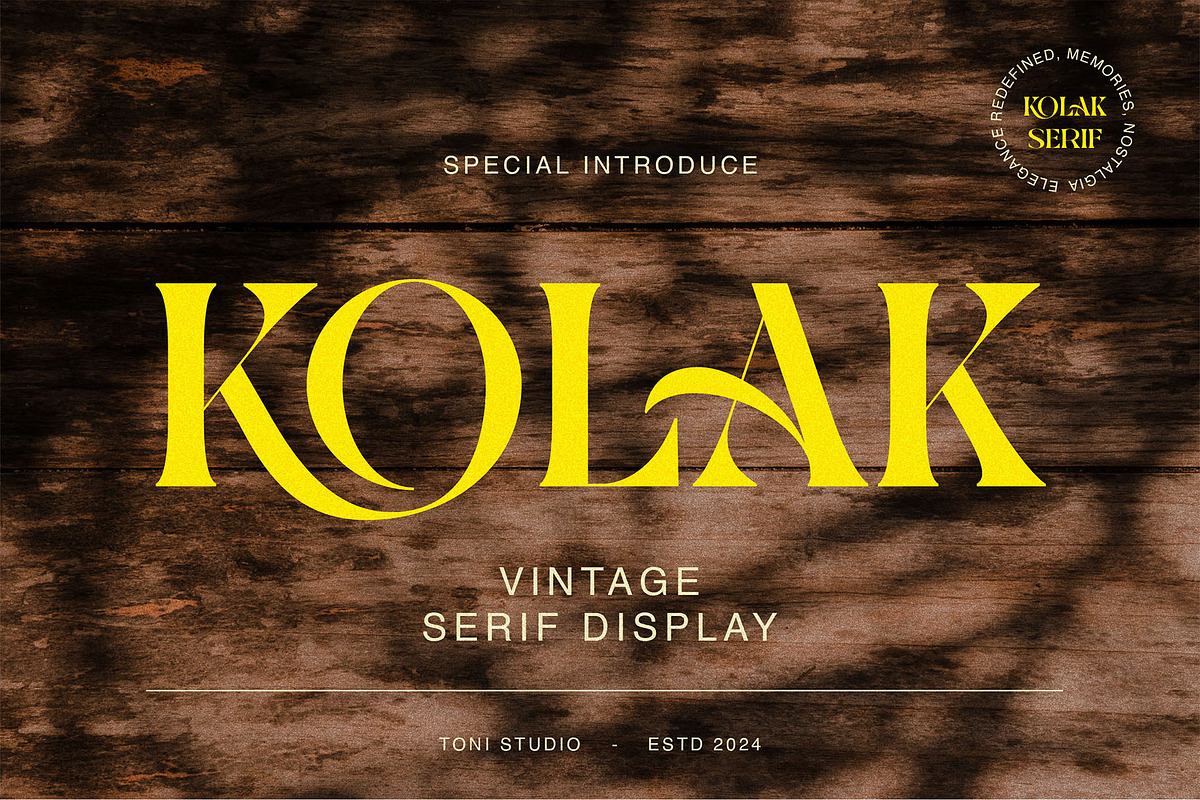
KOLAK – Modern Vintage Font Free Download is a stylish and versatile typeface that combines the timeless charm of retro design with sleek modern aesthetics. With its bold curves, sharp serifs, and nostalgic flair, KOLAK is perfect for logos, packaging, posters, apparel, café branding, and editorial layouts.
Its strong personality and vintage-inspired letterforms make it ideal for projects that aim to stand out while maintaining a classic appeal. Whether you're designing for lifestyle brands, creative businesses, or nostalgic campaigns, KOLAK adds a unique, confident touch.
Designers love KOLAK for its balance of old-school cool and contemporary usability across both print and digital platforms. Want to give your typography a retro-modern twist? Download KOLAK – Modern Vintage Font Free Download and bring bold character to your next design.